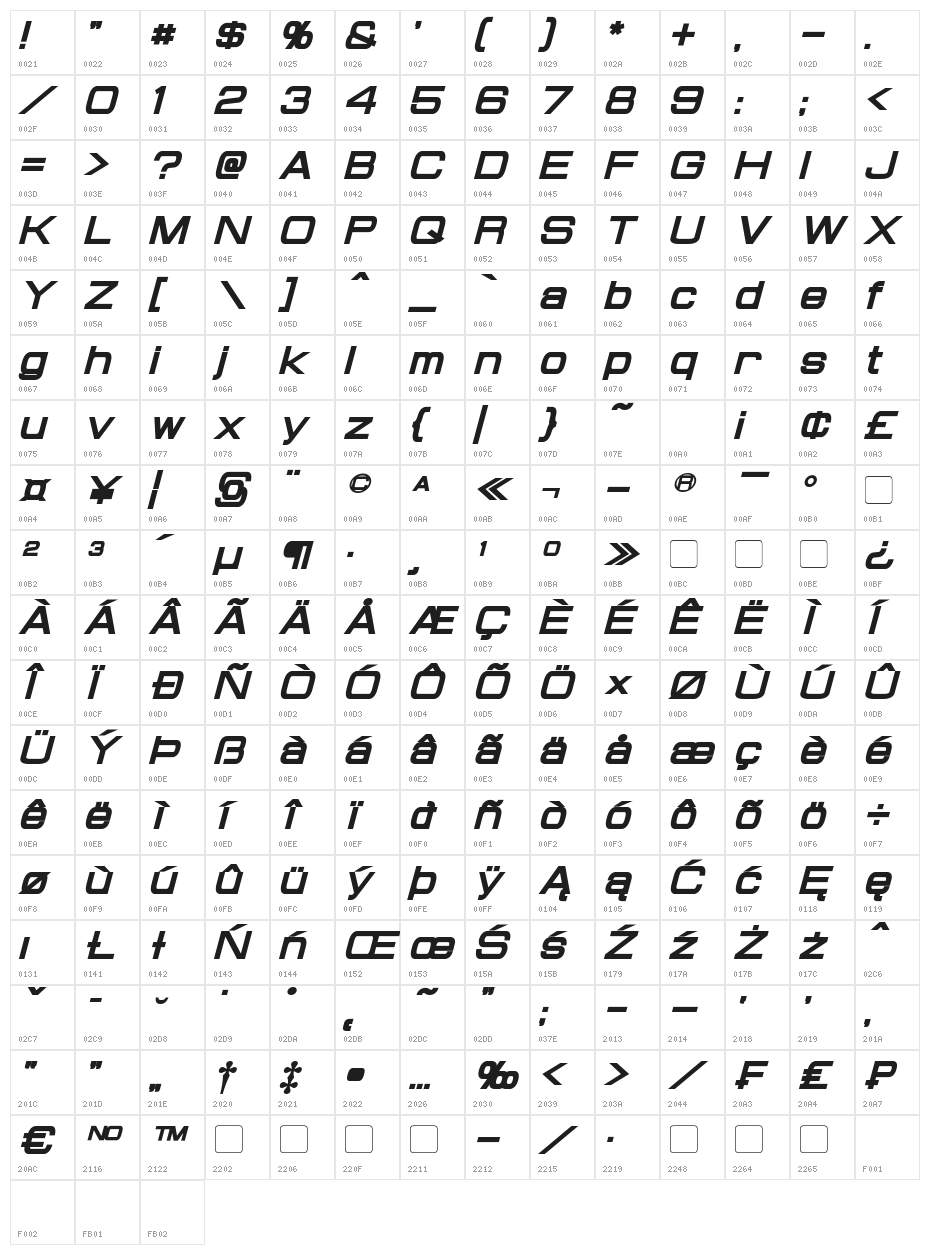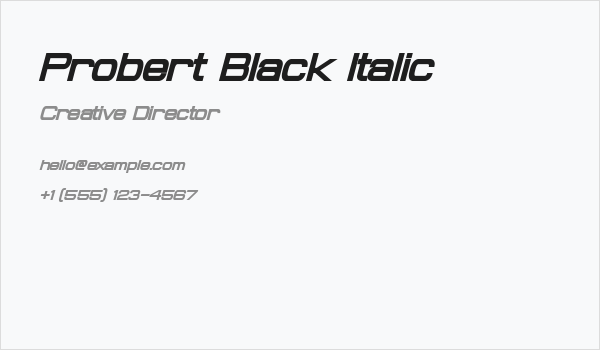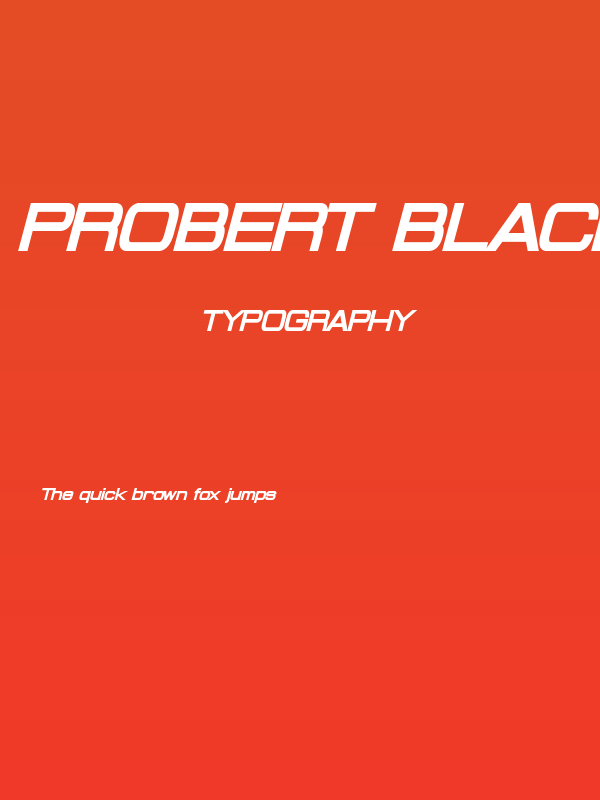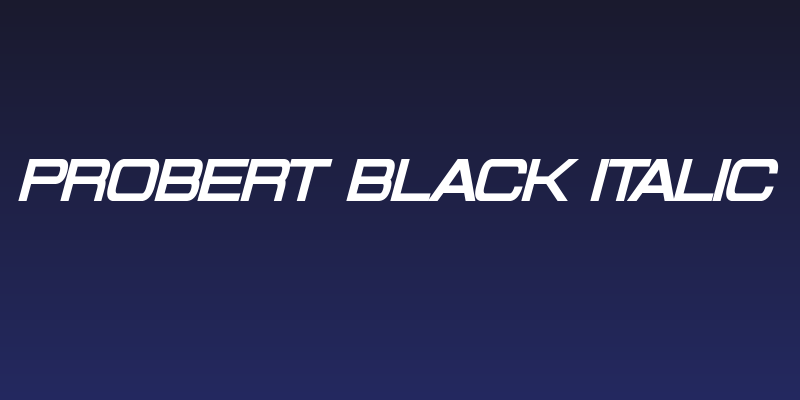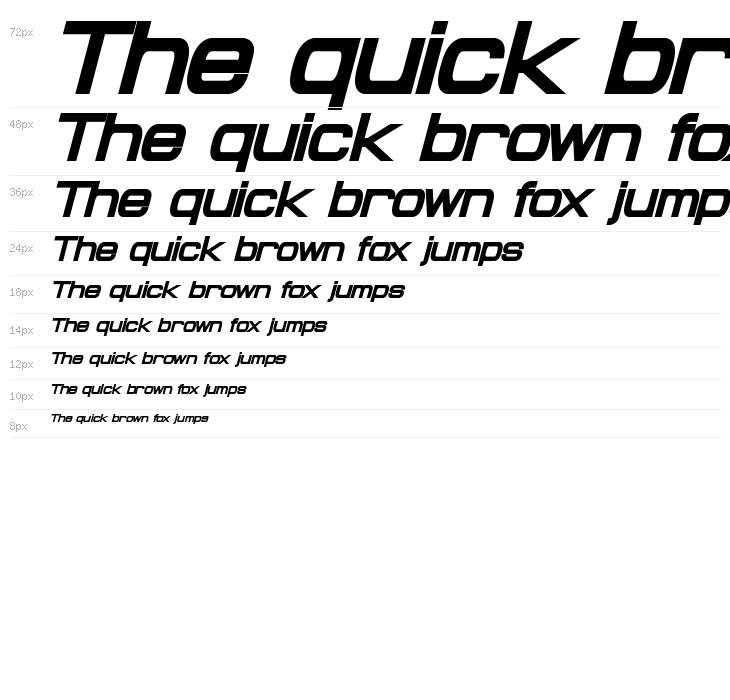
Probert Black Italic Font
Probert Black Italic Description
This font exhibits a bold and dynamic style with a strong italic slant, giving it a sense of motion and energy. The characters are wide and have a substantial weight, making them stand out prominently. The strokes are consistent in thickness, contributing to a uniform appearance across all characters. The uppercase letters are particularly striking, with sharp angles and clean lines, while the lowercase letters maintain a similar aesthetic with slightly softer curves. The numerals and special characters are designed to match the overall bold and italicized style, ensuring a cohesive look. This font is ideal for projects that require a modern and assertive typeface.